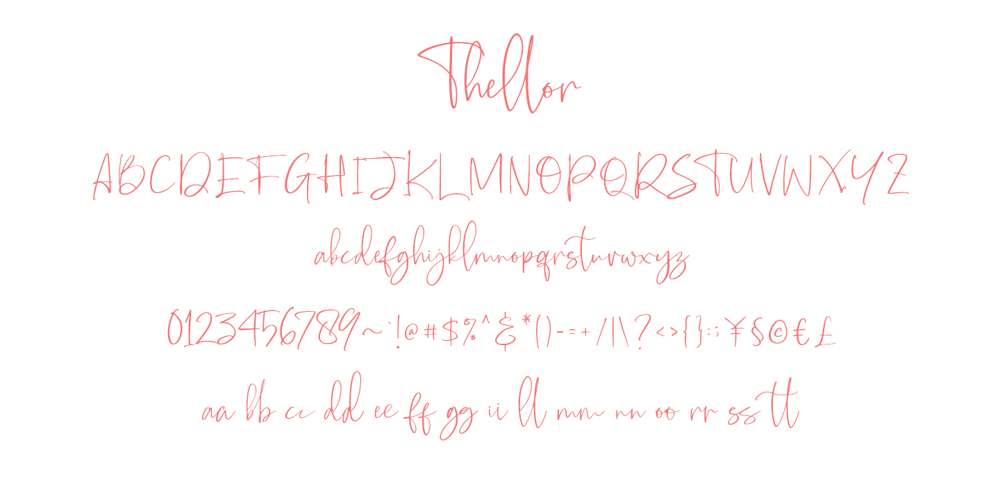
Thellor Font Family was designed by Awan Setiawan and published by Awanstudio. Thellor contains 1 styles and family package options. Thellor is an elegant handwritten script font. Get inspired by its unique shape and character! Thellor contains standard characters, lowercase, uppercase, numbers, punctuation, ligatures, and international characters.